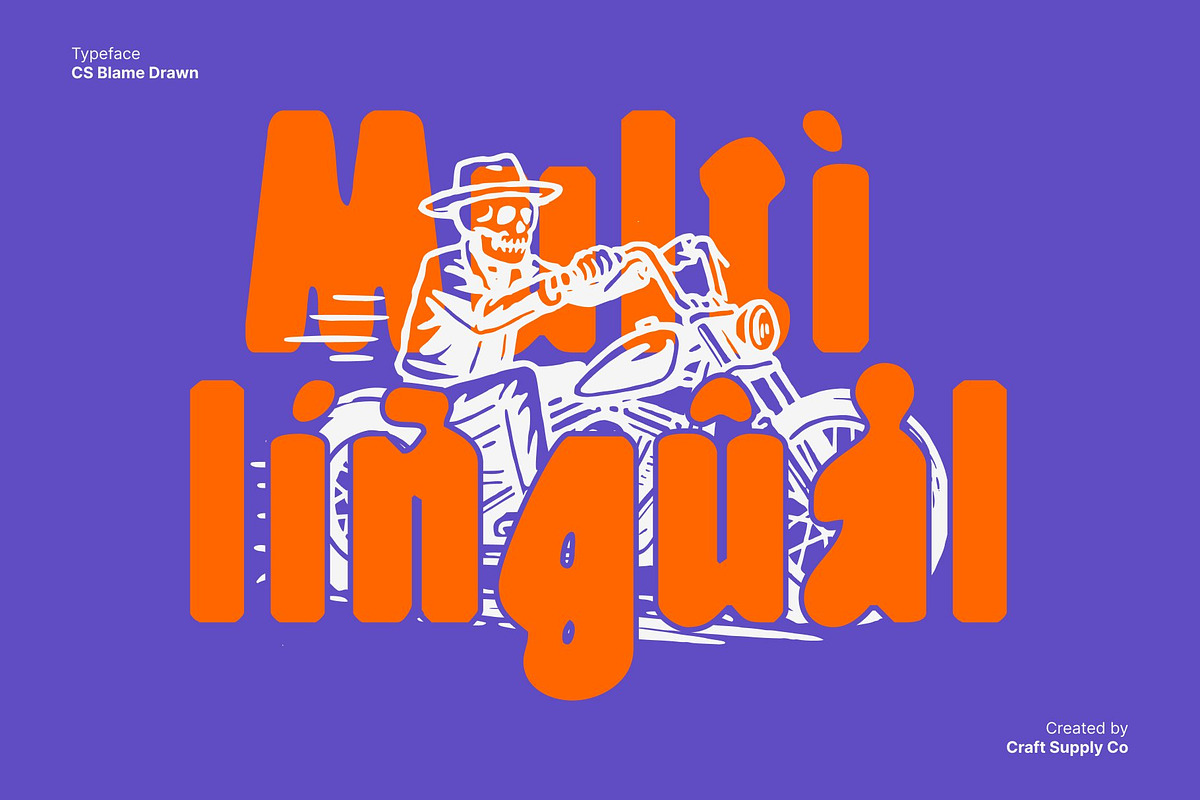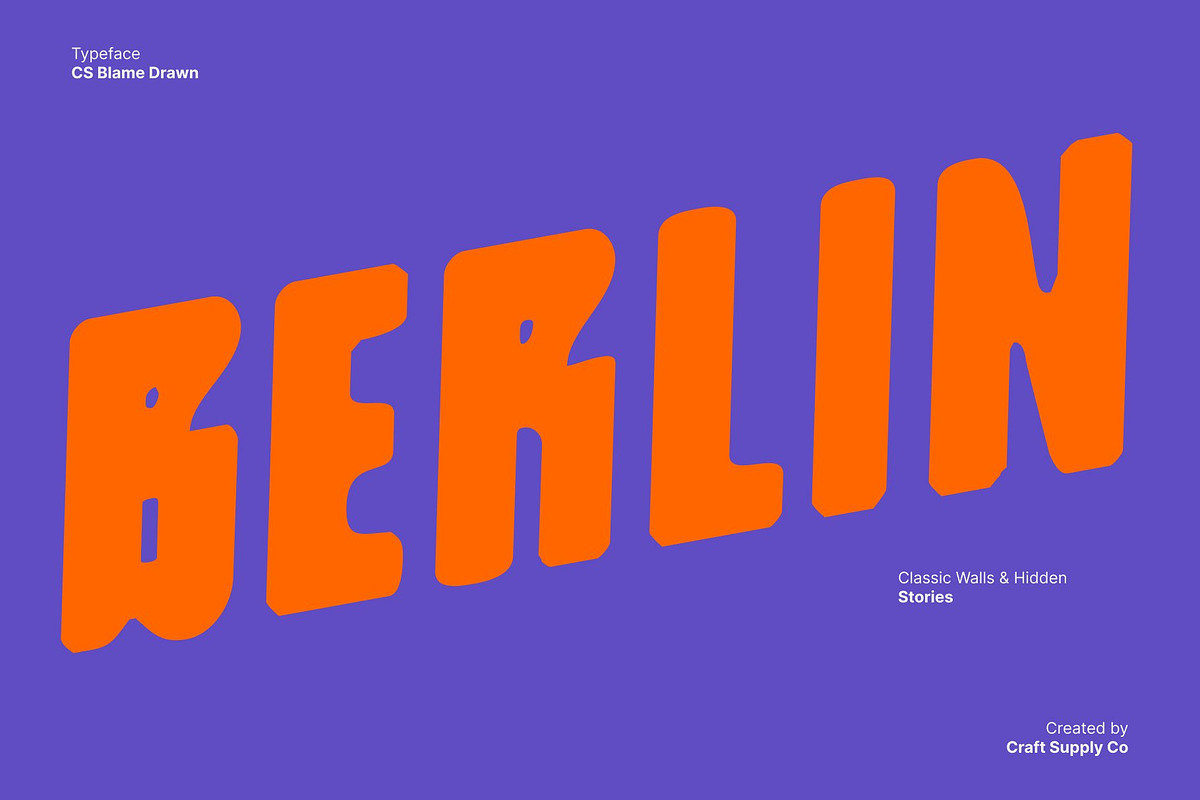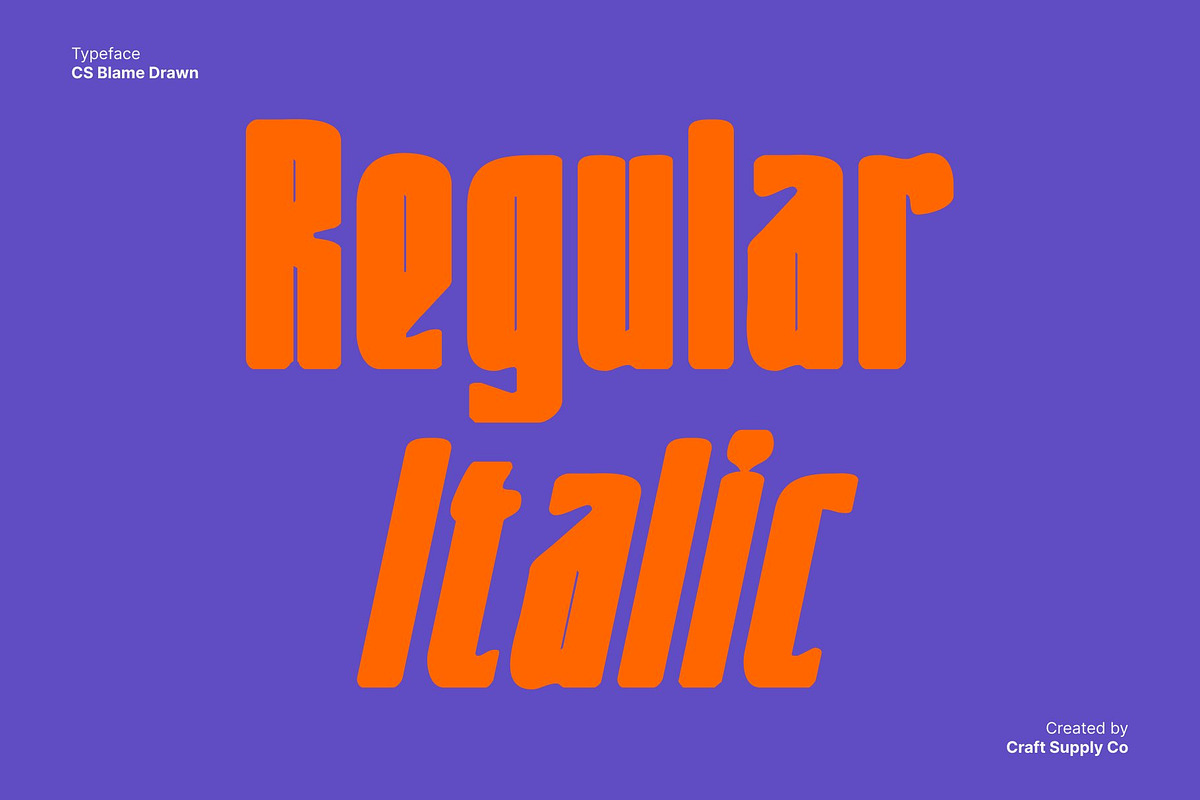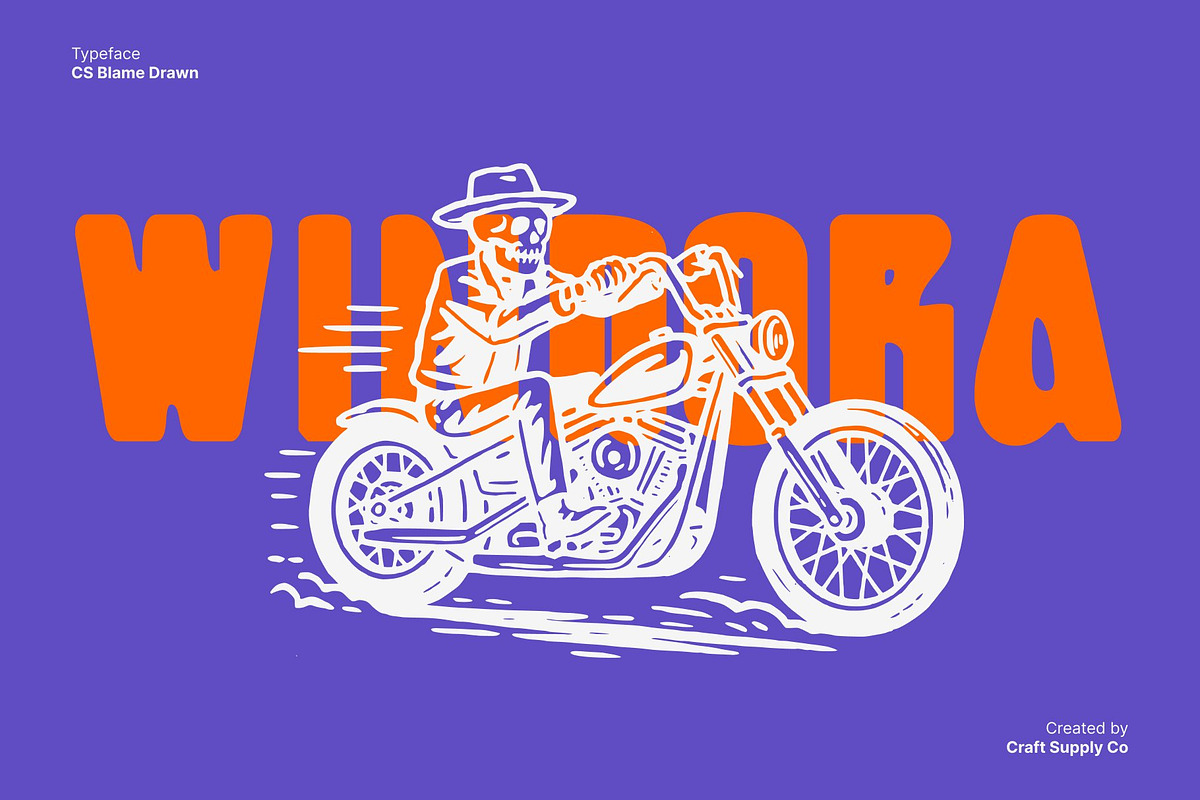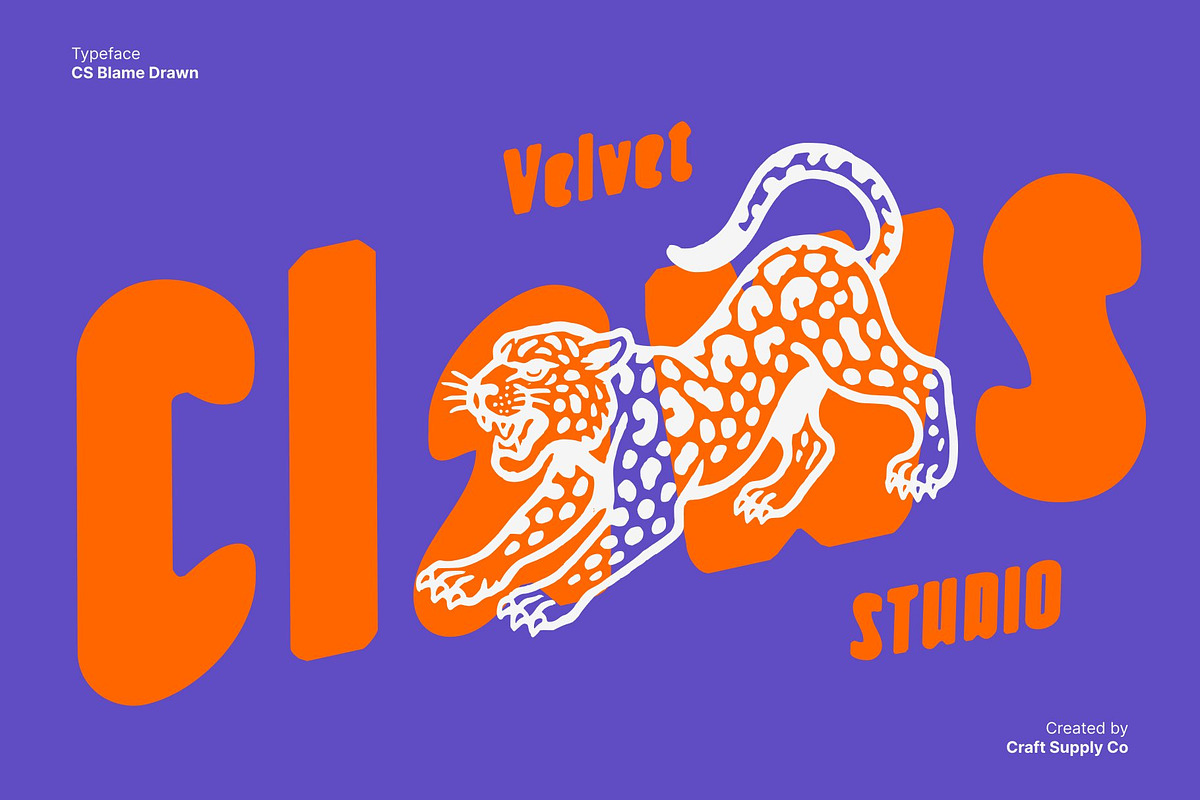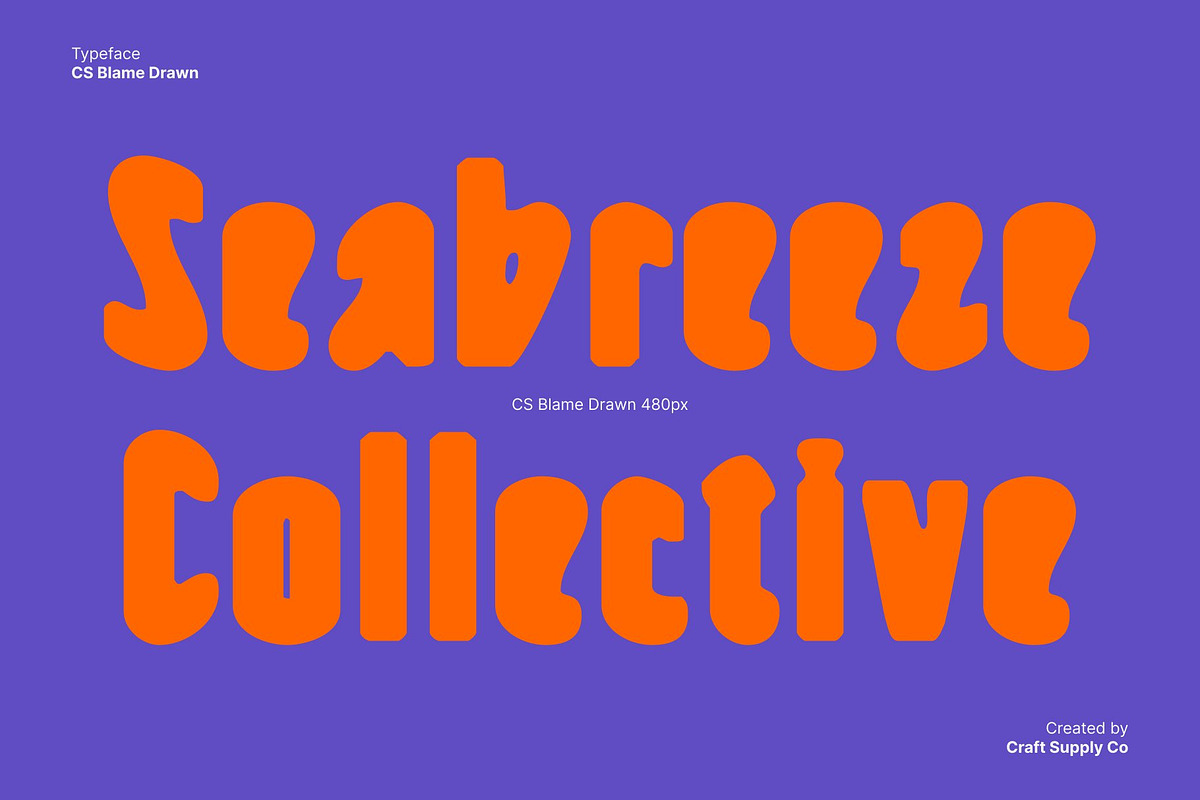
CS Blame Drawn
CS Blame Drawn – Bold Display Font with Cinematic Power
Bold and Cinematic Design This is a display font built to command attention. Inspired by action movie aesthetics, it delivers a dramatic and powerful visual presence. Each letter is crafted with condensed proportions and precise drawn cuts, evoking a sense of motion, speed, and intensity perfect for designs that aim to thrill and captivate.
Sharp Drawn Details for Impact The hand drawn influence gives this font its distinctive edge. The sharp cuts and textured outlines create a raw, energetic feel that sets it apart from standard digital fonts. This crafted touch adds realism and character, giving your designs a strong visual identity that feels bold, authentic, and cinematic.
Designed for Maximum Readability and Force Despite its artistic structure, this font maintains clarity and legibility, even at large display sizes. Its condensed form allows for compact yet impactful layouts, making it ideal for titles, trailers, and bold headlines where every word needs to hit with precision and strength.
Perfect for Action and Gaming Designs This font thrives in projects that demand energy and excitement. Whether for movie posters, game covers, sports branding, or dynamic advertising, this font captures the adrenaline of motion and the spirit of action storytelling. Bring cinematic power and raw expression to your next creative project with CS Blame Drawn.